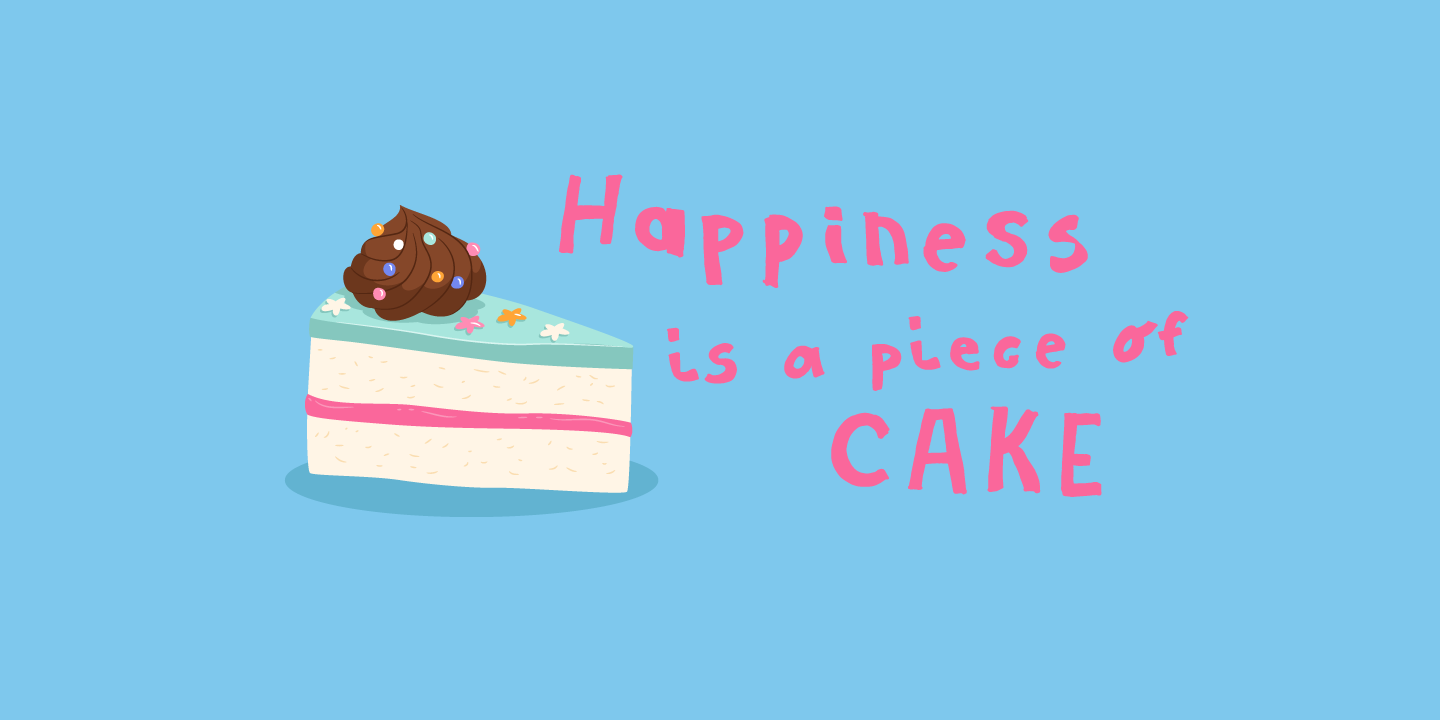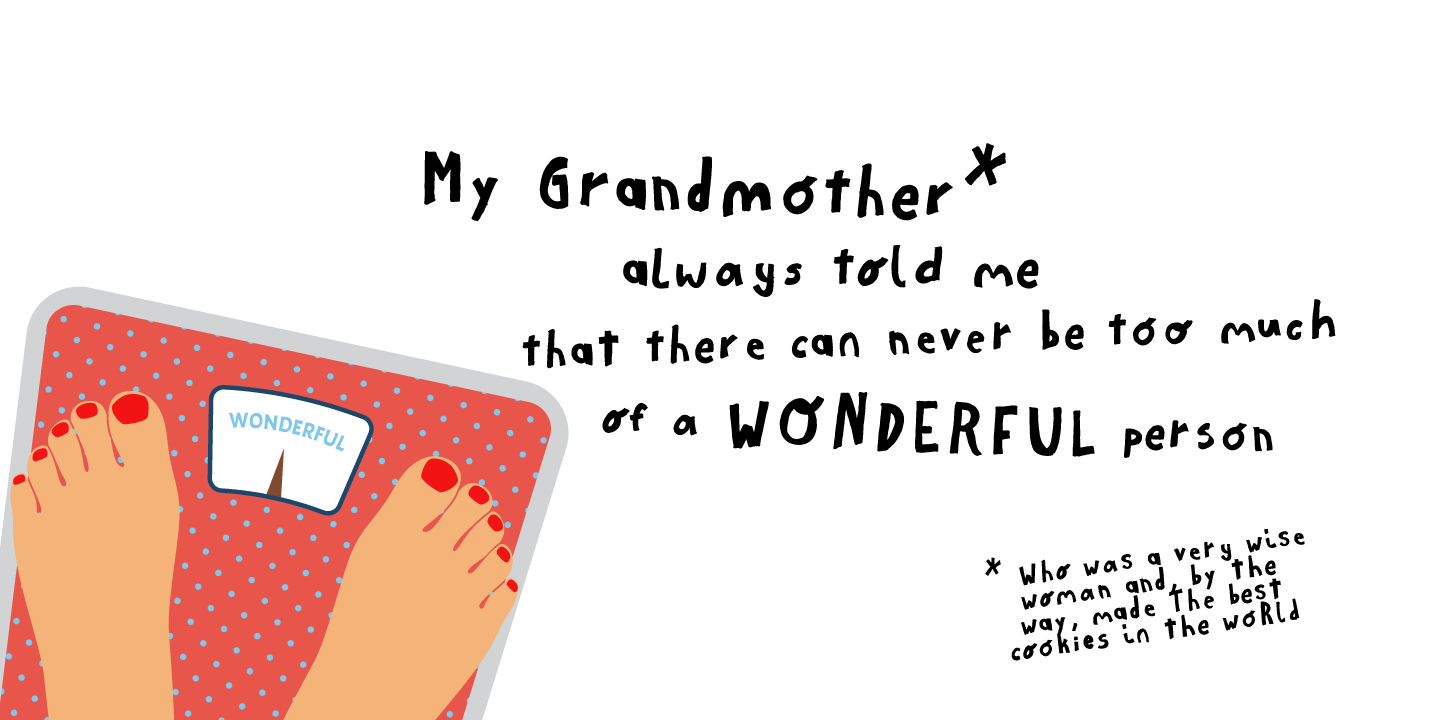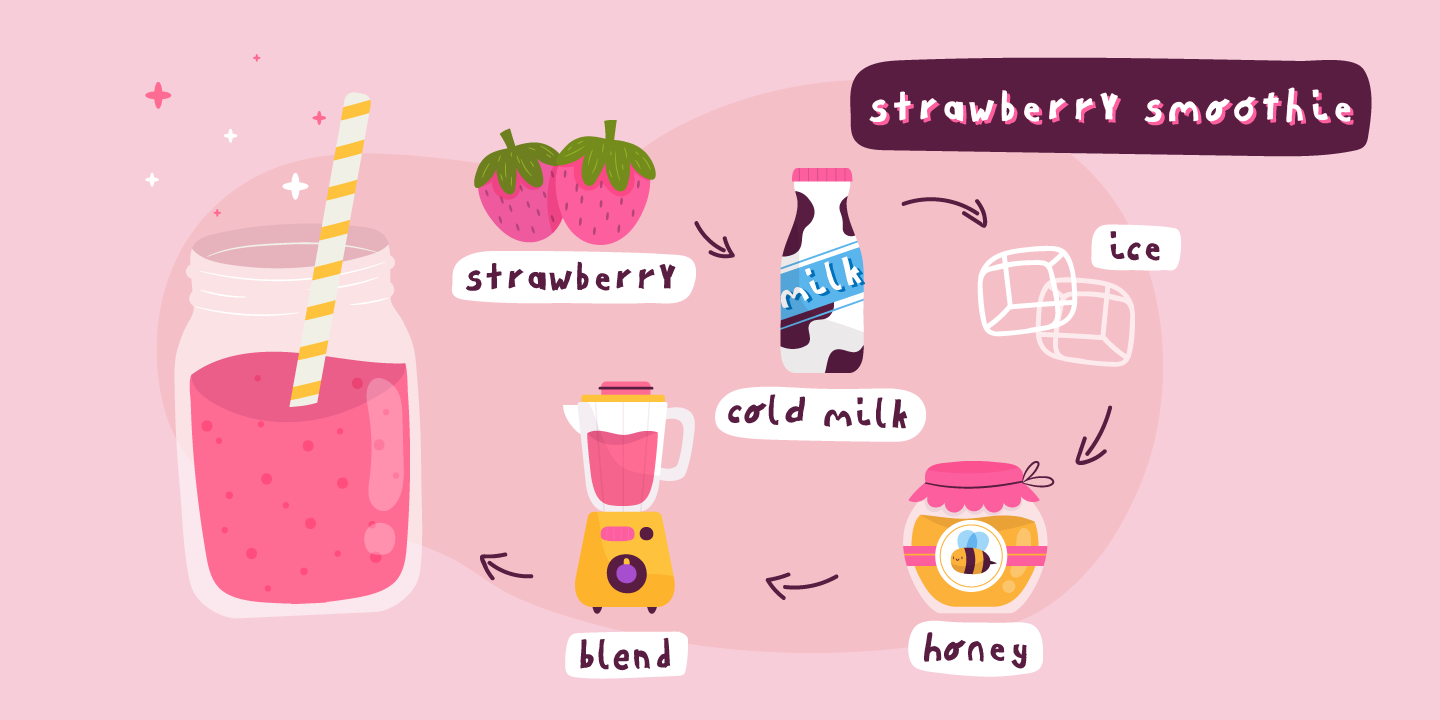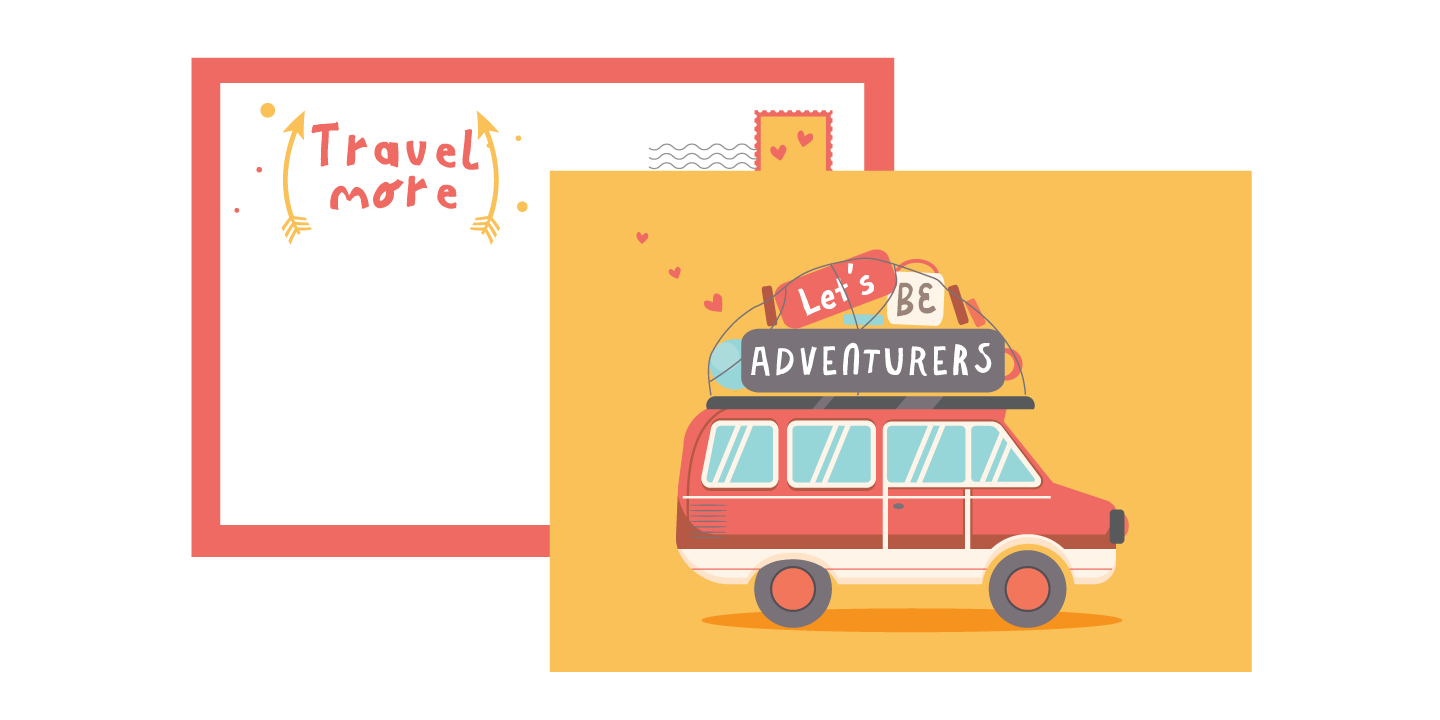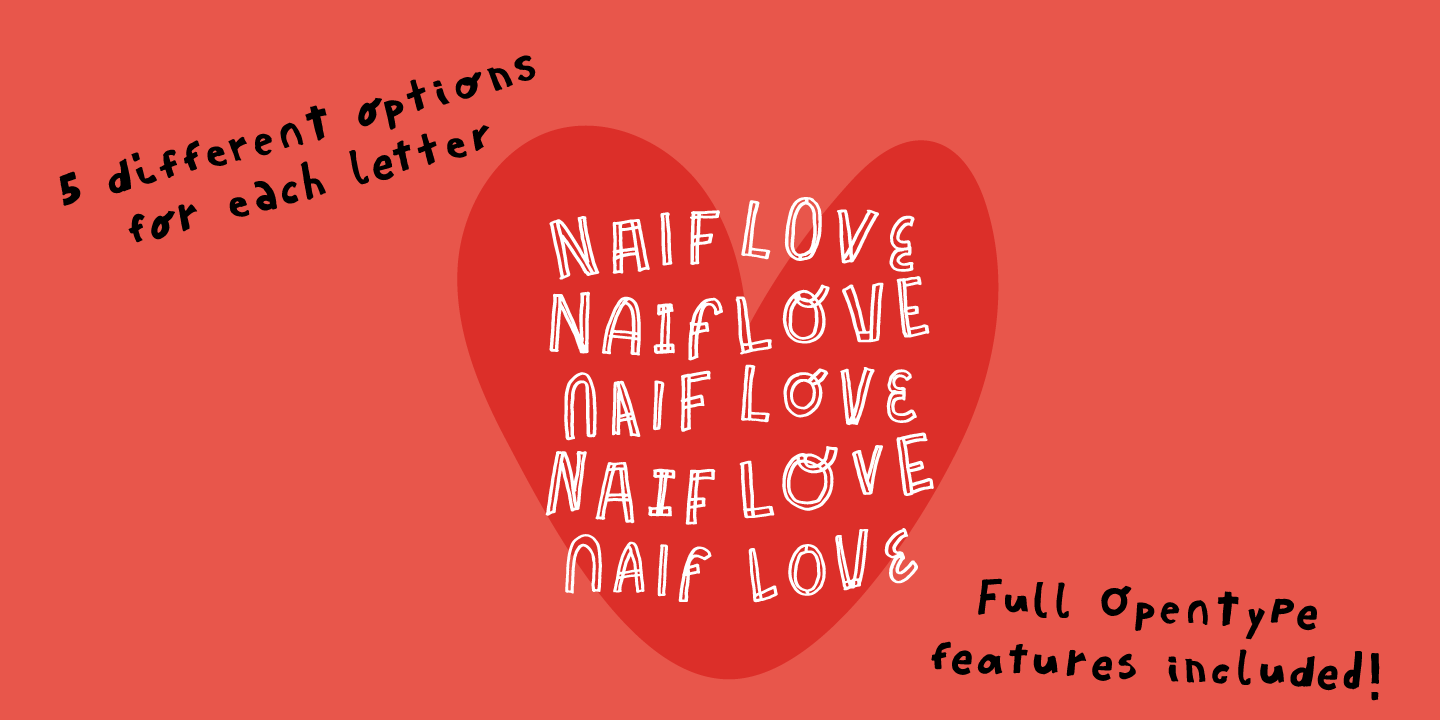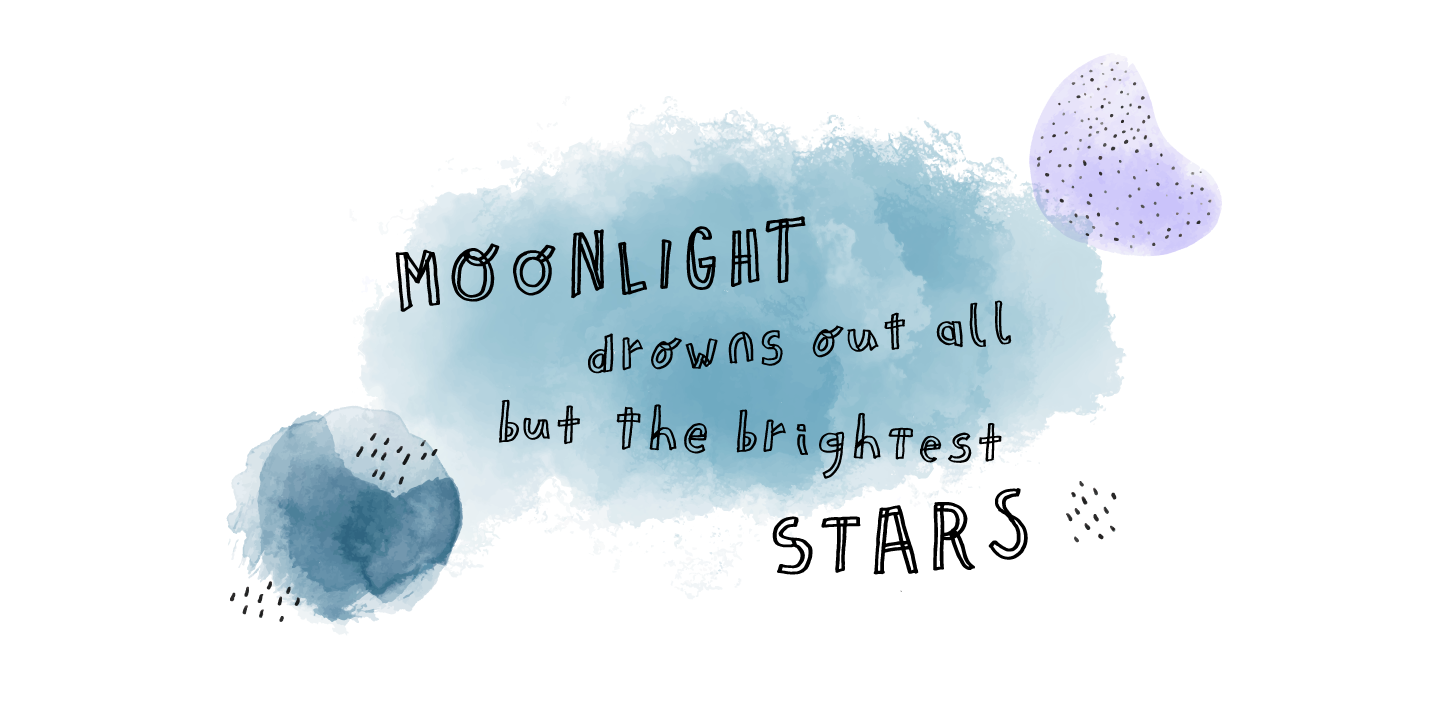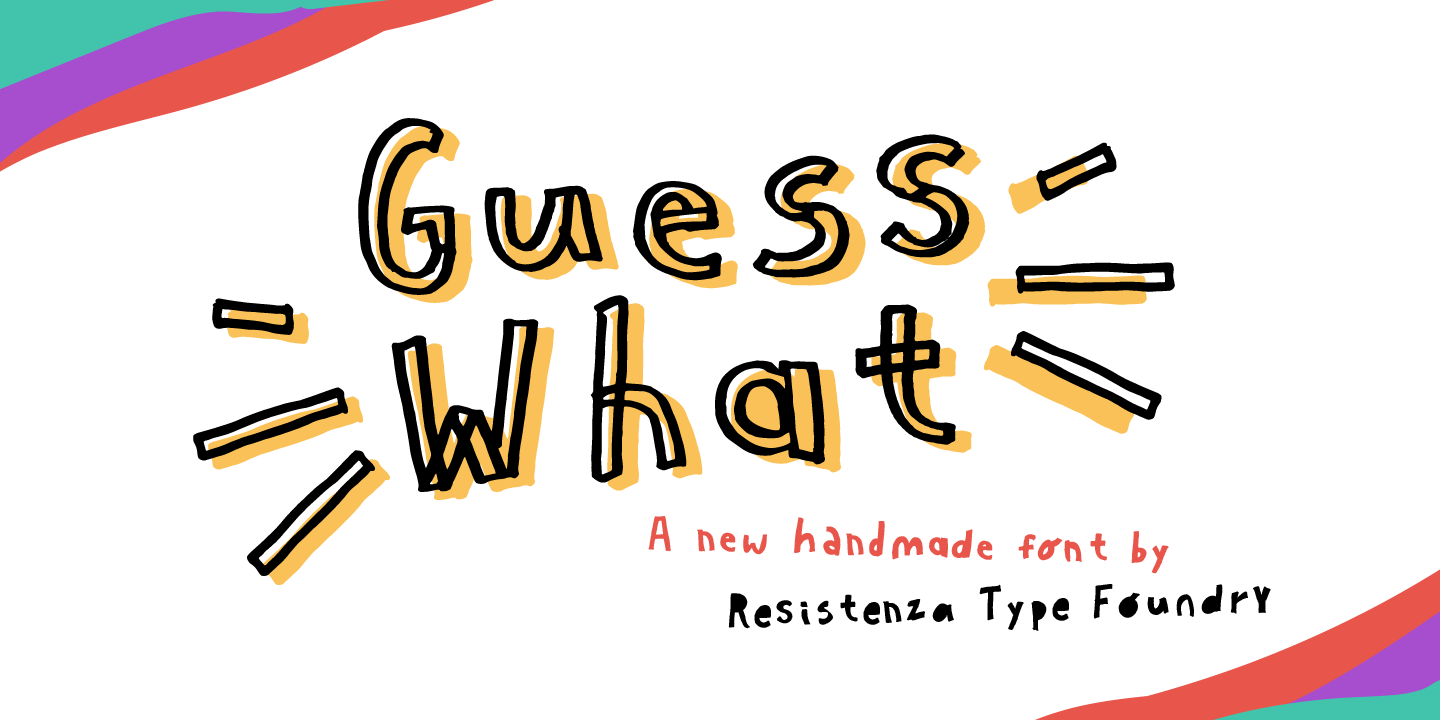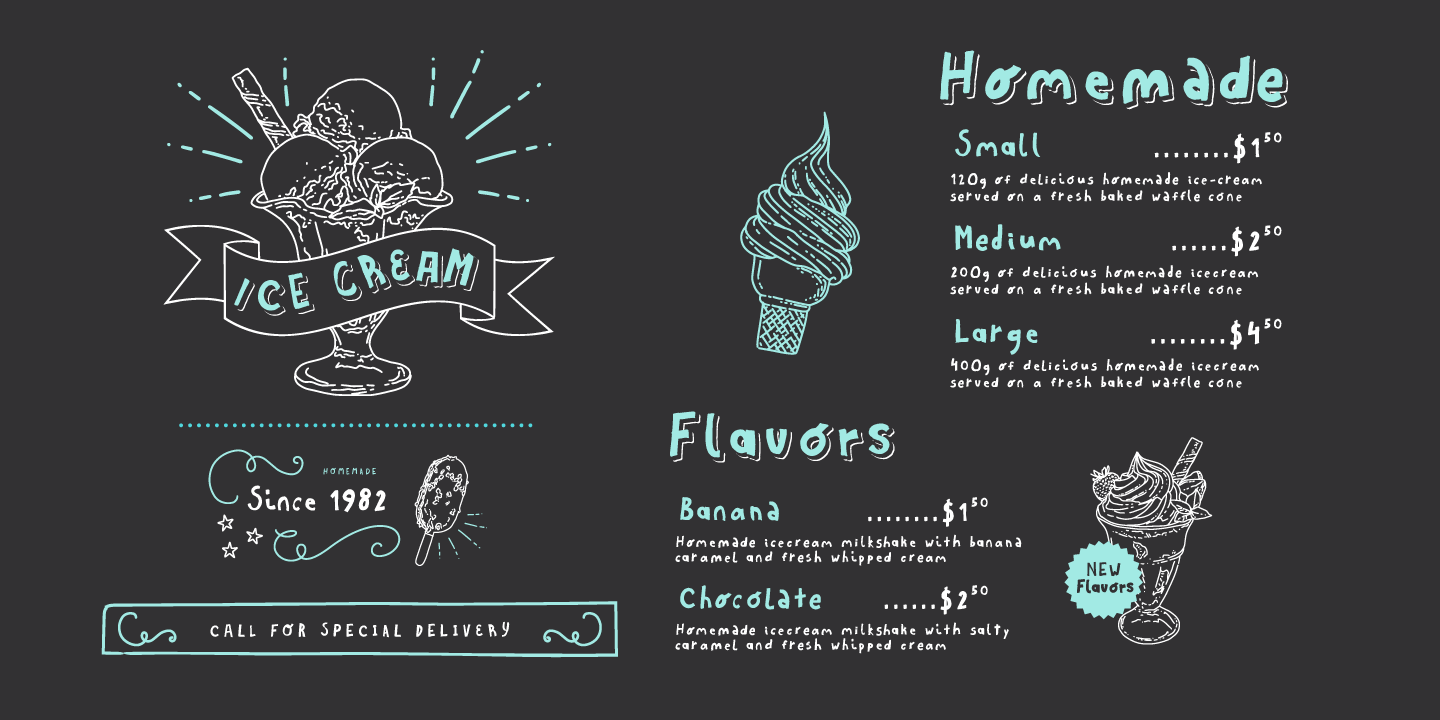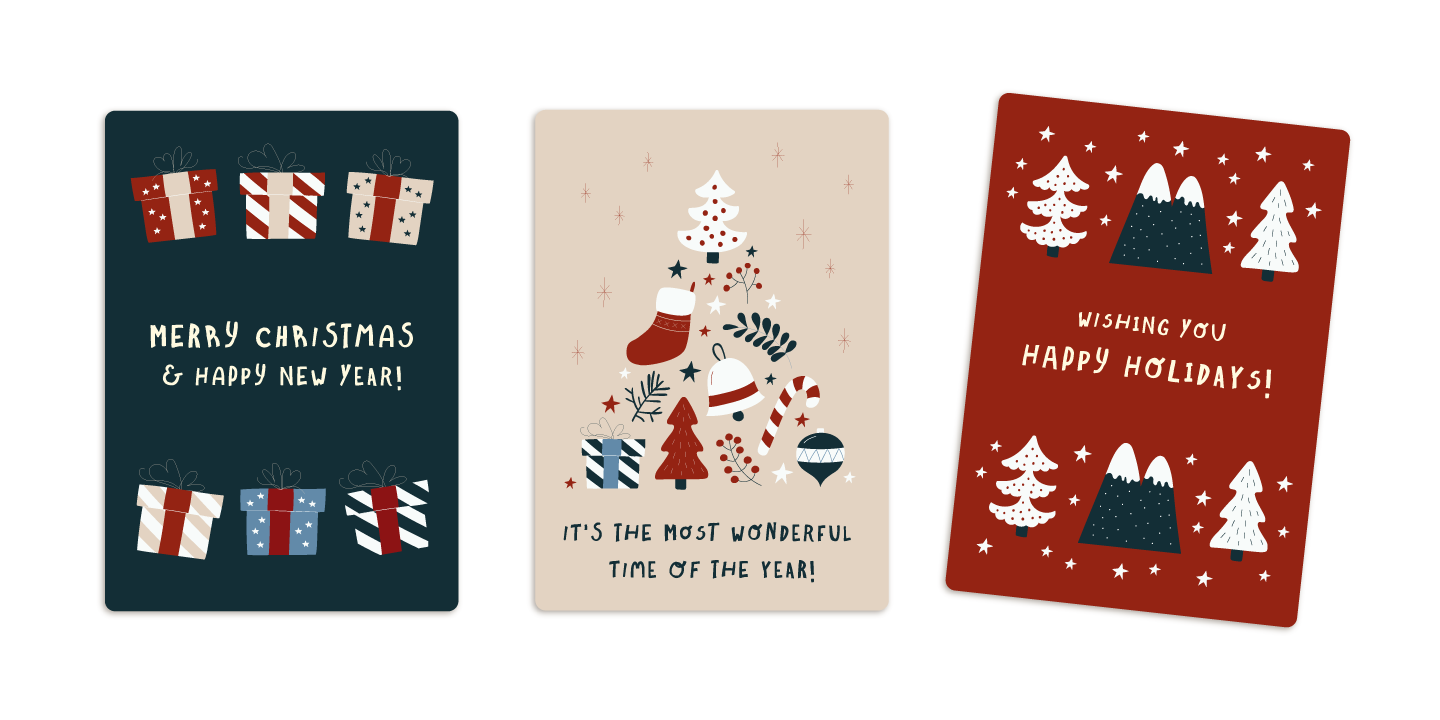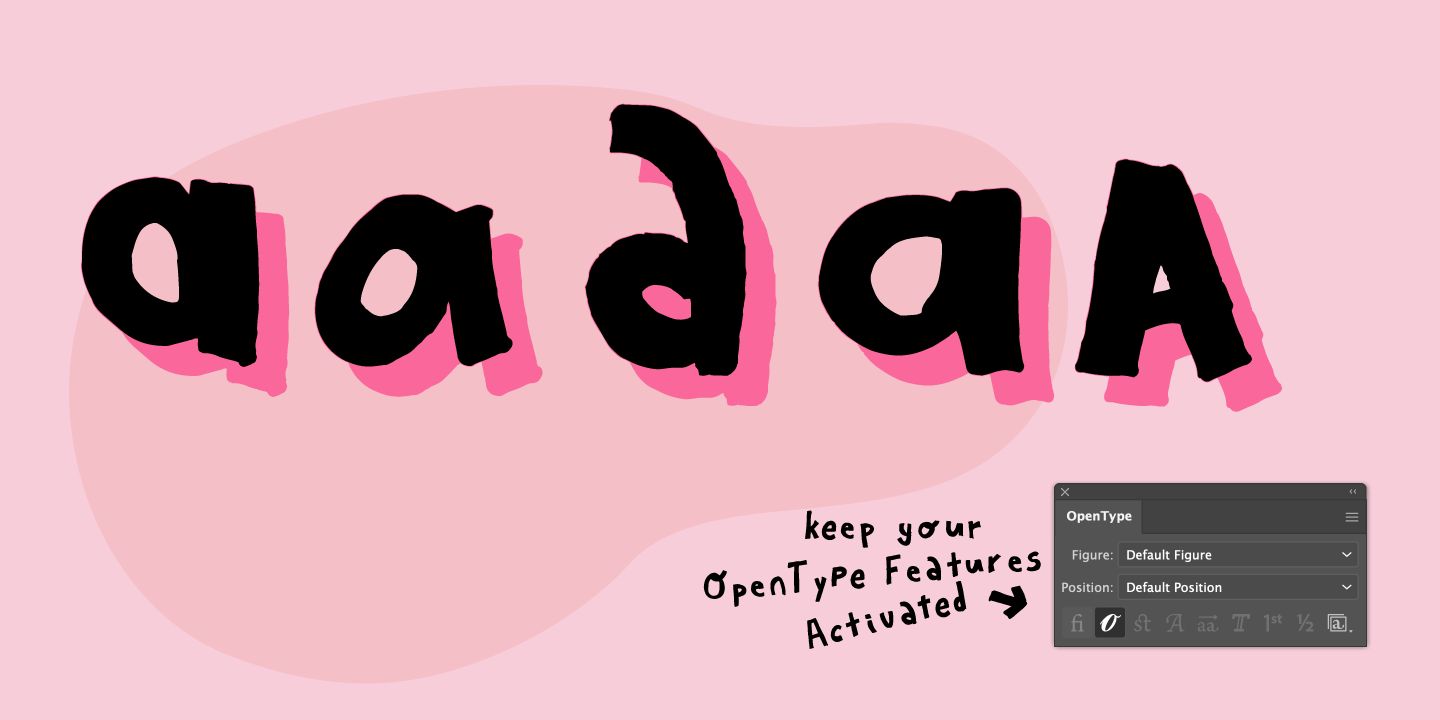
GUESS WHAT
Regular Inline Papercut
Paper cut like Hand-drawn font
Guess What
Designed by Resistenza Type FoundryGuess What? A new hand-drawn font family has arrived! 5 different sets of letters were sketched using a felt tip marker on paper to get a realistic handmade feeling. The magic comes activating the Opentype features, the letters will randomly combined by an advance code creating a more human feeling. More than 1500 glyphs available to customise your text. Works perfectly for many purposes adding a casual natural mood to the text. Try it on a book cover, digital ads, kids stuff, comics, branding, advertising, packaging...